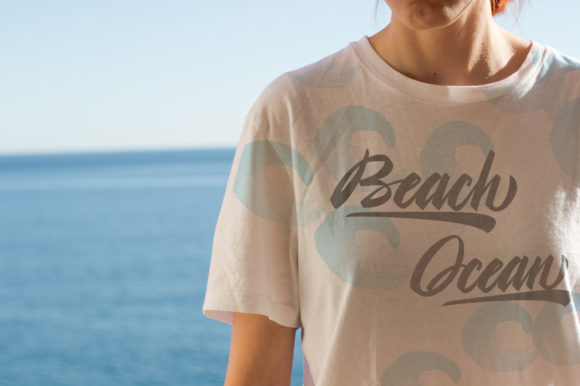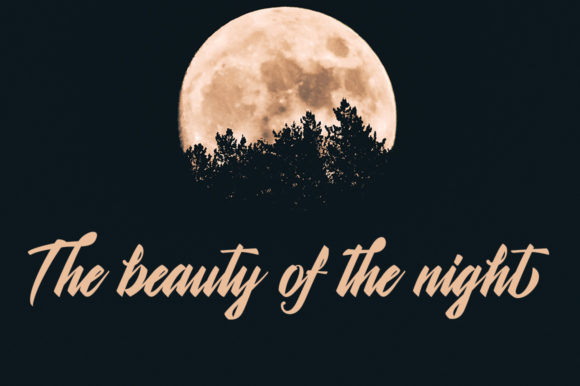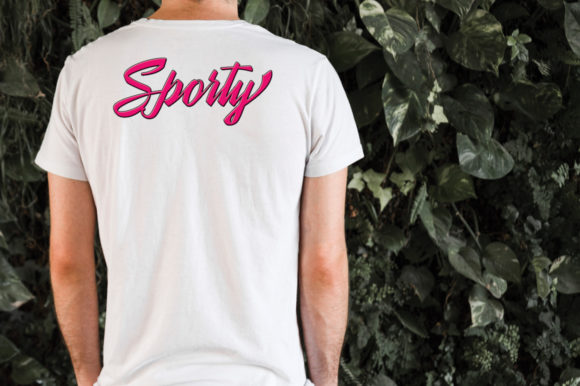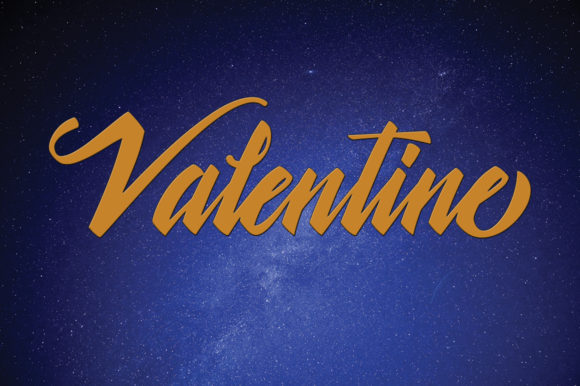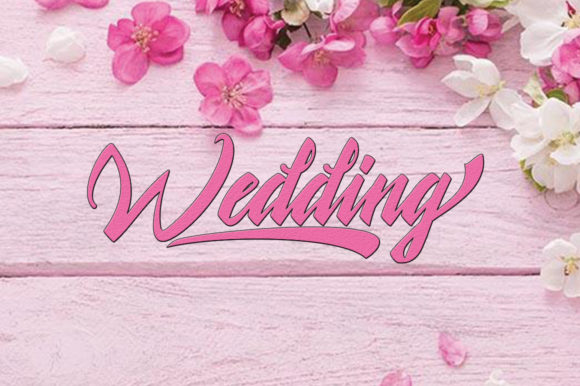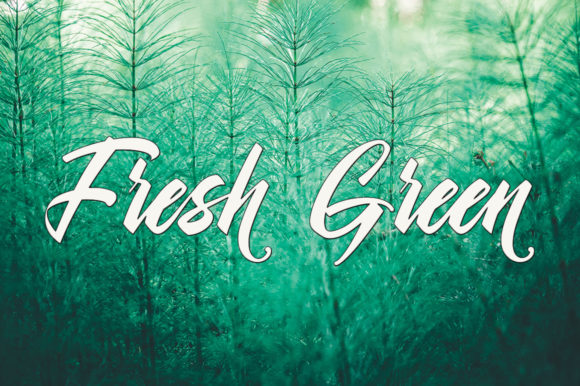
Introduction to Shanella Font Font
Fonts play a crucial role in design, and the Shanella Font font is a typeface that brings both character and versatility to any project. Whether you’re working on a branding project, a website, or a print design, the Shanella Font font offers a unique style that can elevate your work.
Shanella is a friendly, fierce and fun script that is a true standout amongst fonts.
Key Features of Shanella Font Font
Why Choose Shanella Font Font?
The Shanella Font font is more than just a typeface – it’s a design tool that helps you communicate your message with style and clarity. Its unique character set and versatile design make it suitable for a wide range of applications, from elegant invitations to bold headlines.
With its carefully crafted letterforms and balanced proportions, the Shanella Font font ensures readability and visual appeal across all mediums.
What makes Shanella Font font special?
The Shanella Font font stands out with its unique design, exceptional readability, and versatility across various design applications.